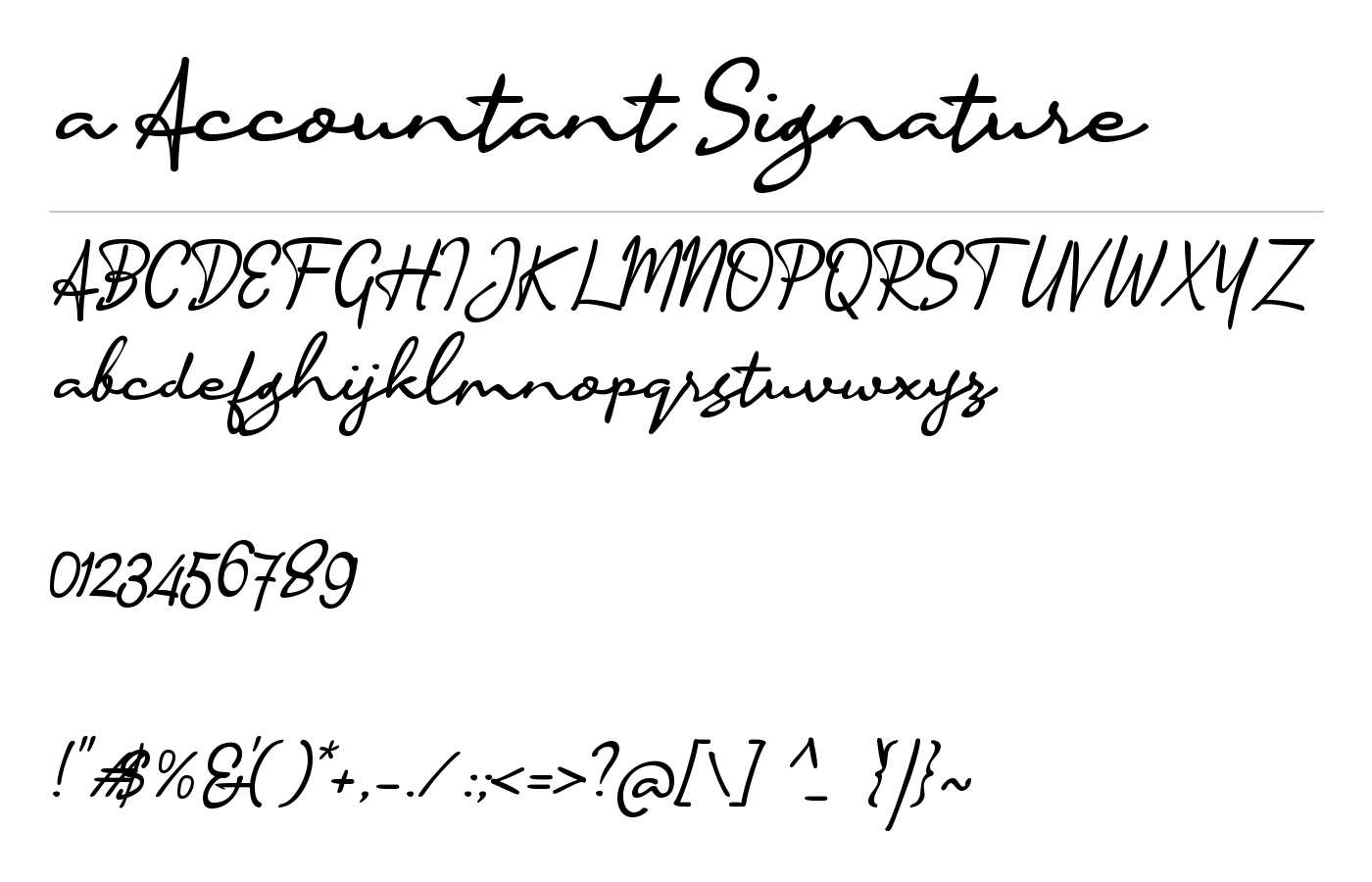
a Accountant Signature Font is a stylish, handwritten script font that mimics an elegant personal signature with smooth, flowing strokes and a natural, casual feel. It features a slender and slightly condensed design with consistent weight and lively letterforms, making it perfect for branding, invitations, and creative projects looking to convey warmth and authenticity. This font works well in logos and headlines where a personal, refined touch is desired.
a Accountant Signature Font